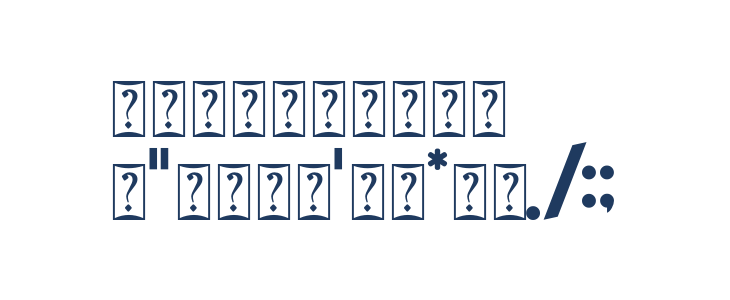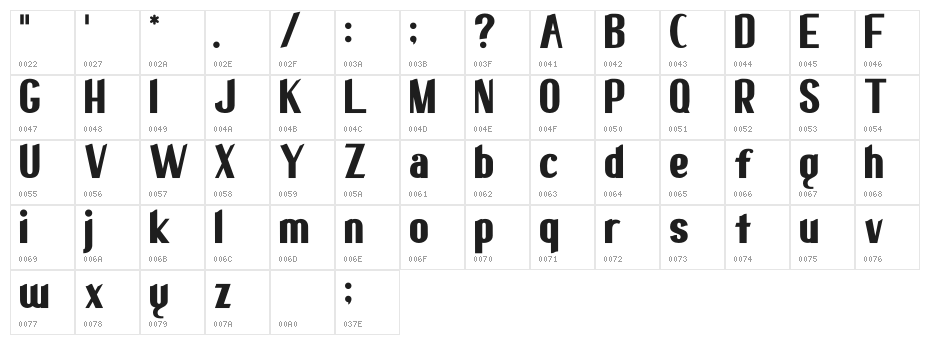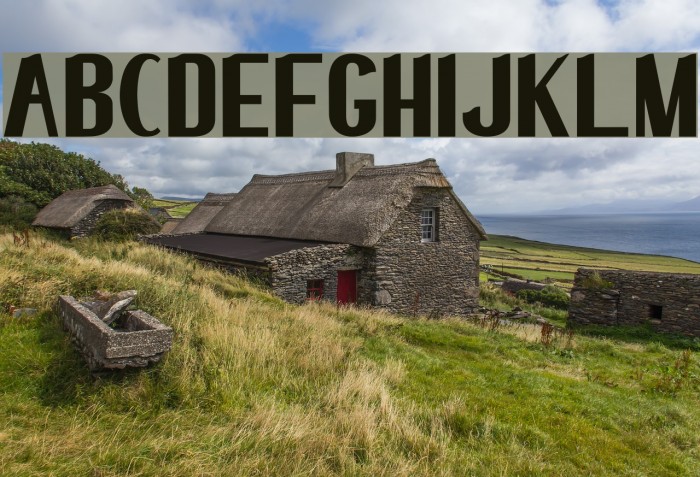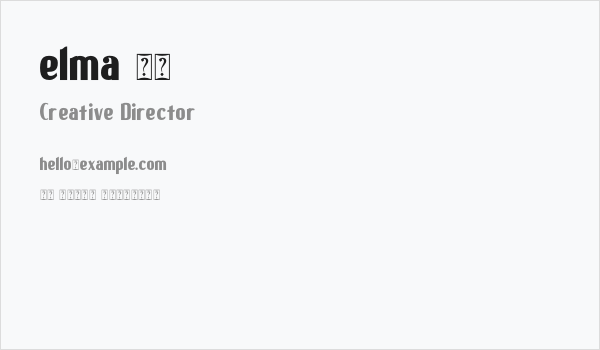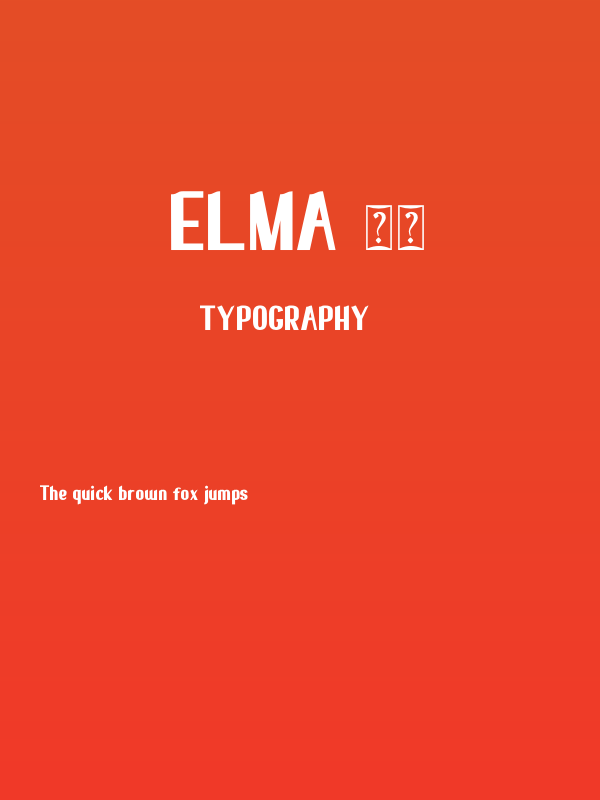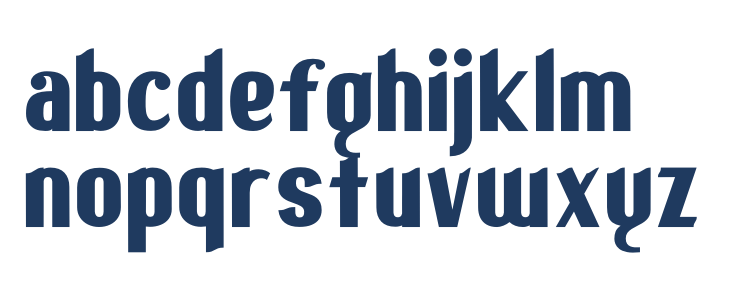
elma 03 Font
elma 03 Description
This font features a bold and striking design with thick, uniform strokes that convey a sense of strength and modernity. The uppercase letters are tall and commanding, while the lowercase letters maintain a consistent weight, offering a cohesive look. The characters are slightly condensed, providing a compact appearance that is ideal for impactful headlines. The font includes a variety of special characters, maintaining the bold style throughout. Its high contrast in stroke thickness adds to its visual appeal, making it suitable for attention-grabbing designs.
| Proposed Projects | Ideal for branding, poster design, headlines, and any project requiring a strong visual impact. |